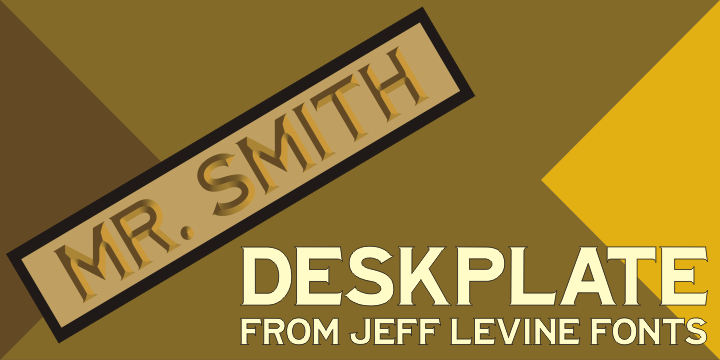
Deskplate JNL Font is perfect for vintage office signage, retro corporate branding, classic nameplate designs, mid-century business materials, traditional office furniture labeling, executive desk accessories, professional engraving projects, vintage administrative designs, classic workplace graphics, and authentic period office communications that require nostalgic professionalism and timeless business elegance.
This font is exciting because it perfectly captures the classic sophistication and professional dignity of traditional office nameplates with letterforms that embody the authoritative presence and enduring quality of mid-century business culture. Deskplate JNL Font features precise geometric construction and balanced proportions that reflect the meticulous craftsmanship and professional standards essential to traditional office environments and executive communications.
Deskplate JNL Font family includes Regular, Bold, Light, Executive, Classic, Professional, Vintage, and Engraved versions, plus office symbols, professional ornaments, business icons, and traditional design elements that enhance the authentic office aesthetic and provide comprehensive solutions for corporate and professional applications.
For vintage corporate and professional design projects, Deskplate JNL Font Free Download delivers unmatched nostalgic authority and business credibility. The font's classic letterforms and professional character make it perfect for established businesses, executive services, and traditional corporations seeking to communicate reliability, heritage, and professional excellence. Its timeless design appeals to audiences who appreciate classic business values and professional tradition. The character set includes business symbols and professional notation that reflect traditional office standards. Professional designers appreciate its ability to convey both vintage authenticity and contemporary professionalism while maintaining excellent readability across corporate communications, professional branding, and business materials, making it essential for organizations that want to project the timeless professionalism and classic business sophistication that defines enduring corporate excellence and traditional workplace authority in both vintage-inspired and modern professional environments.